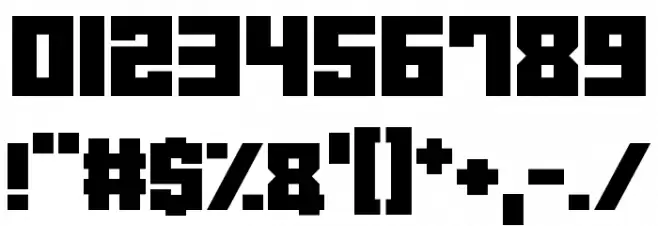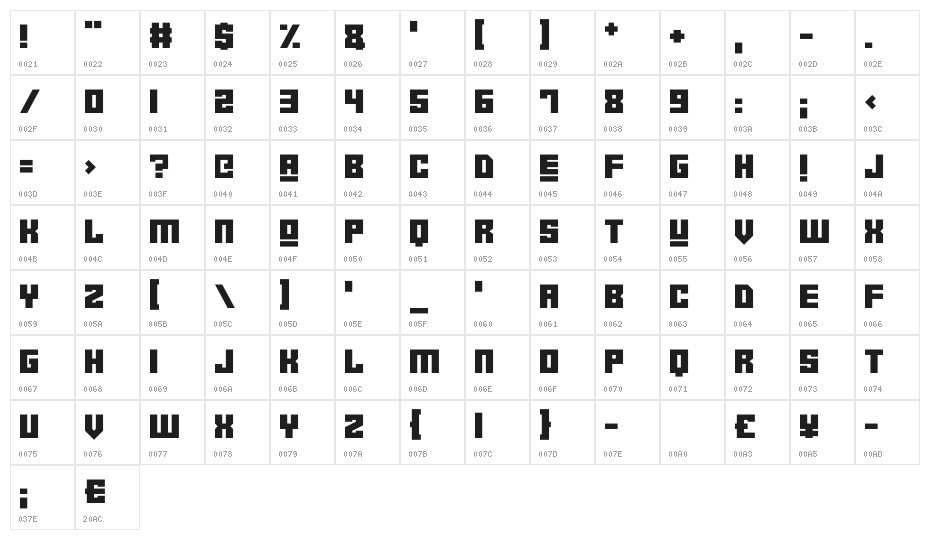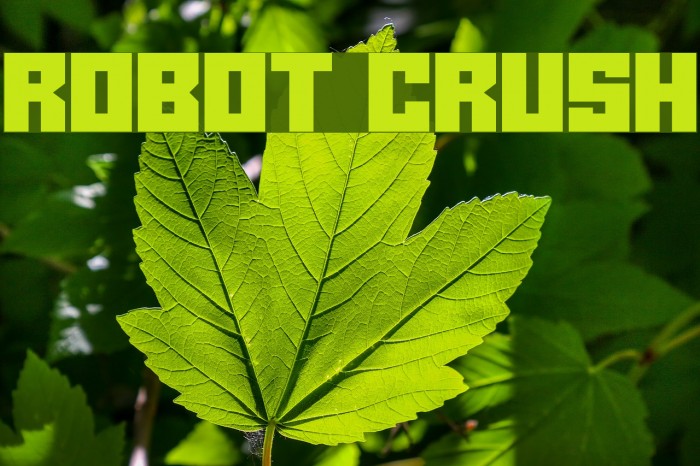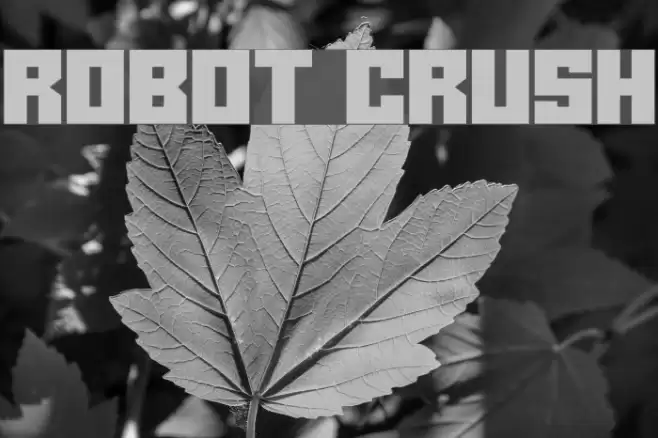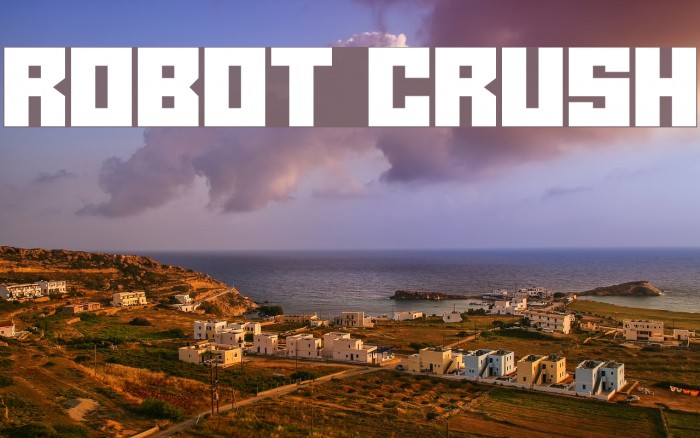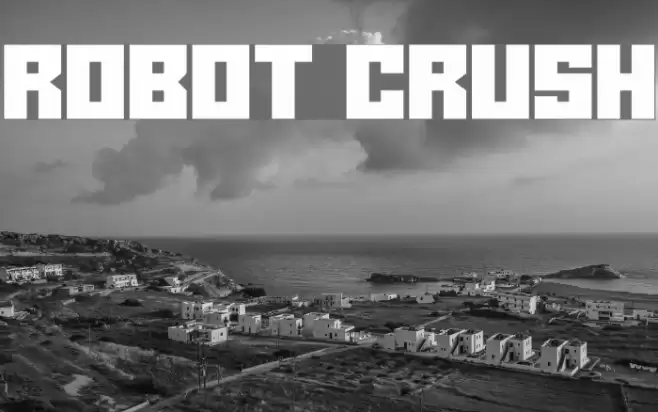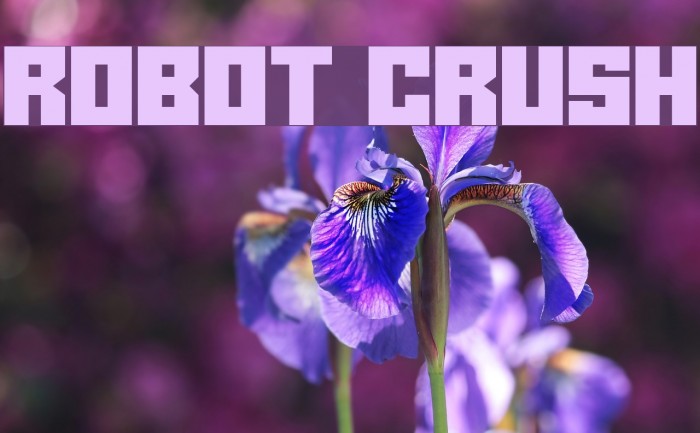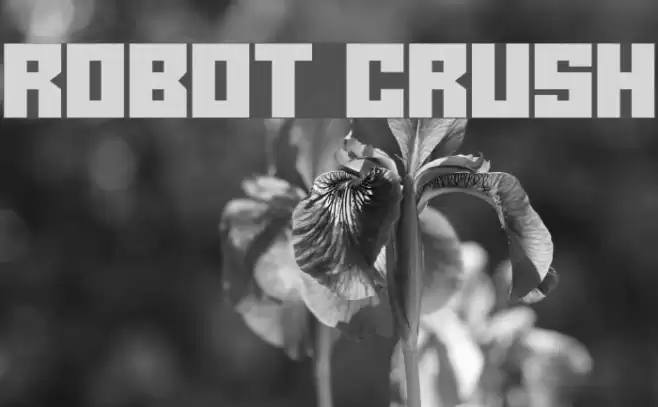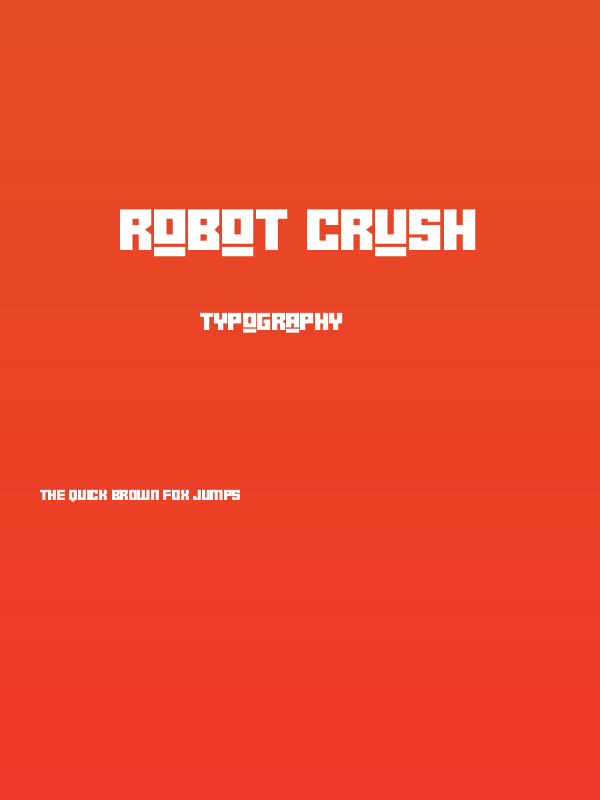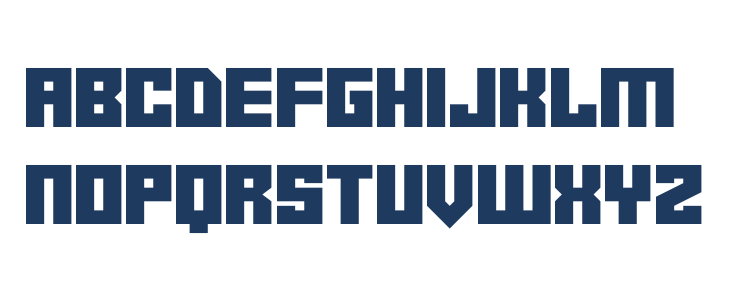
Robot Crush Font
Robot Crush Description
This font features a bold, geometric design with a strong, block-like appearance. The characters are uniformly wide, giving it a monospaced feel, though it is not strictly monospaced. The uppercase and lowercase letters share the same height, enhancing its robust and industrial aesthetic. The sharp angles and straight lines contribute to a futuristic and mechanical look, reminiscent of digital or robotic themes. The numbers and special characters maintain this consistent style, making it suitable for projects that require a modern and tech-oriented vibe. The font's heavy weight and high contrast in stroke thickness make it stand out, ideal for attention-grabbing headlines or logos.
| Proposed Projects | Ideal for technology-themed projects, video game titles, sci-fi posters, and branding for tech companies. |